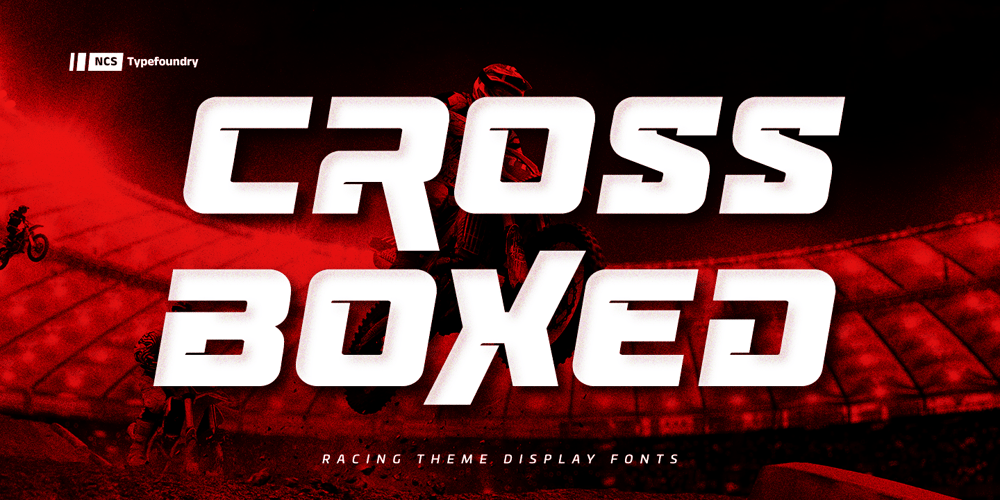
Cross Boxed Font Family was designed by Toni Setiawan and published by Namara Creative Studio. Cross Boxed contains 4 styles and family package options. Bold modern sport font with rounded corners in consistent angles. A strong and unique style instantly adds power of movement to your creative projects.It’s perfect for logotypes, headlines, game covers, sports events, posters, magazine covers, branding, product design, labels, and other suitable projects.